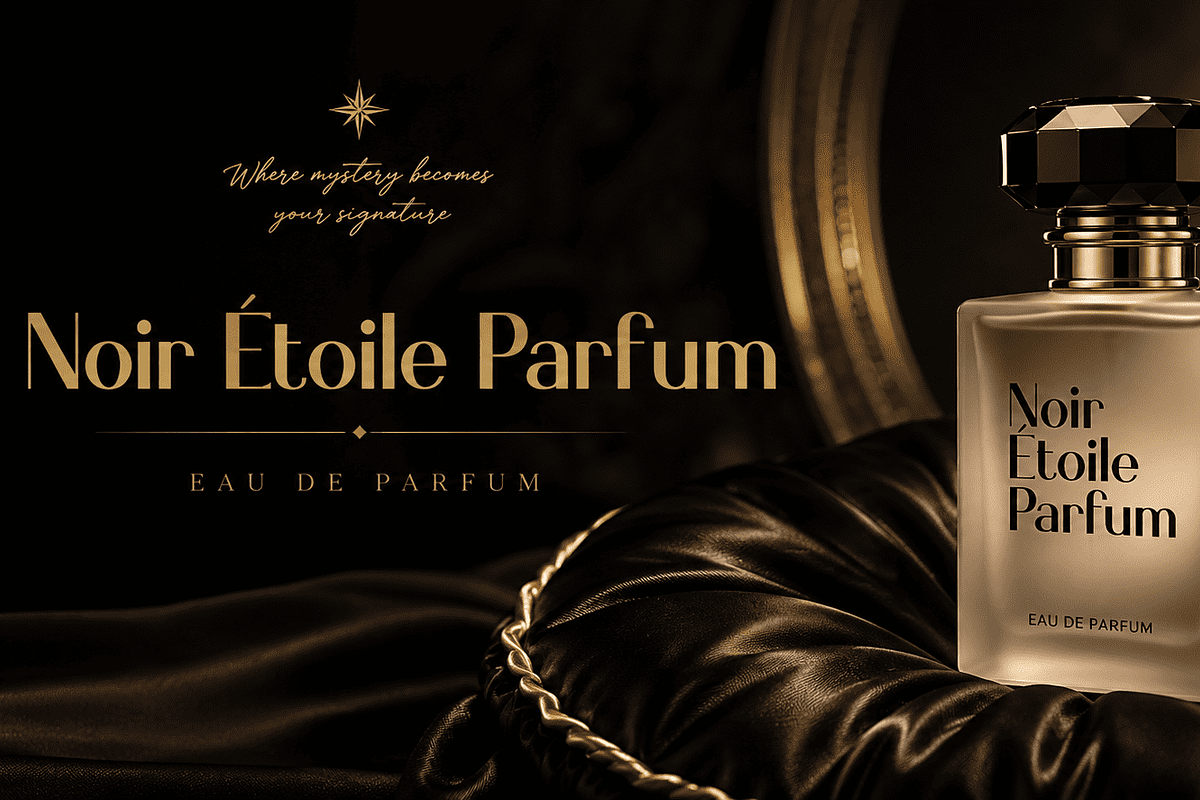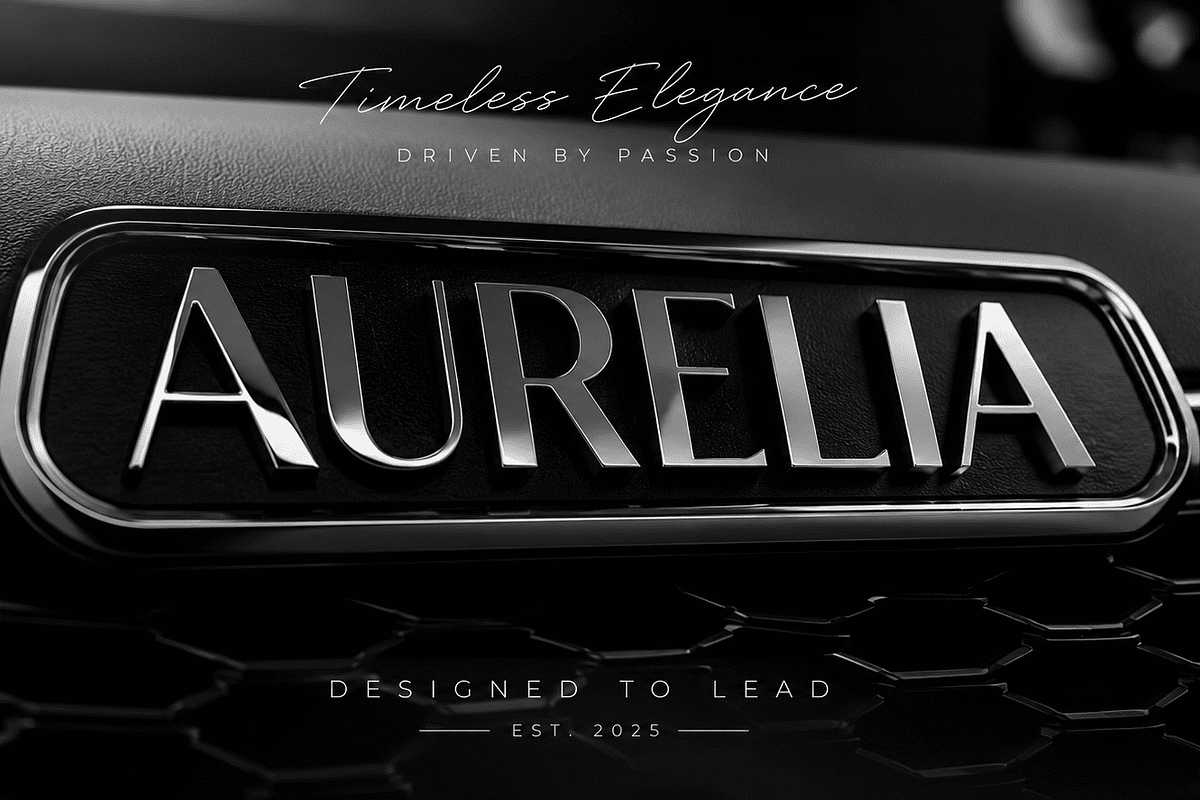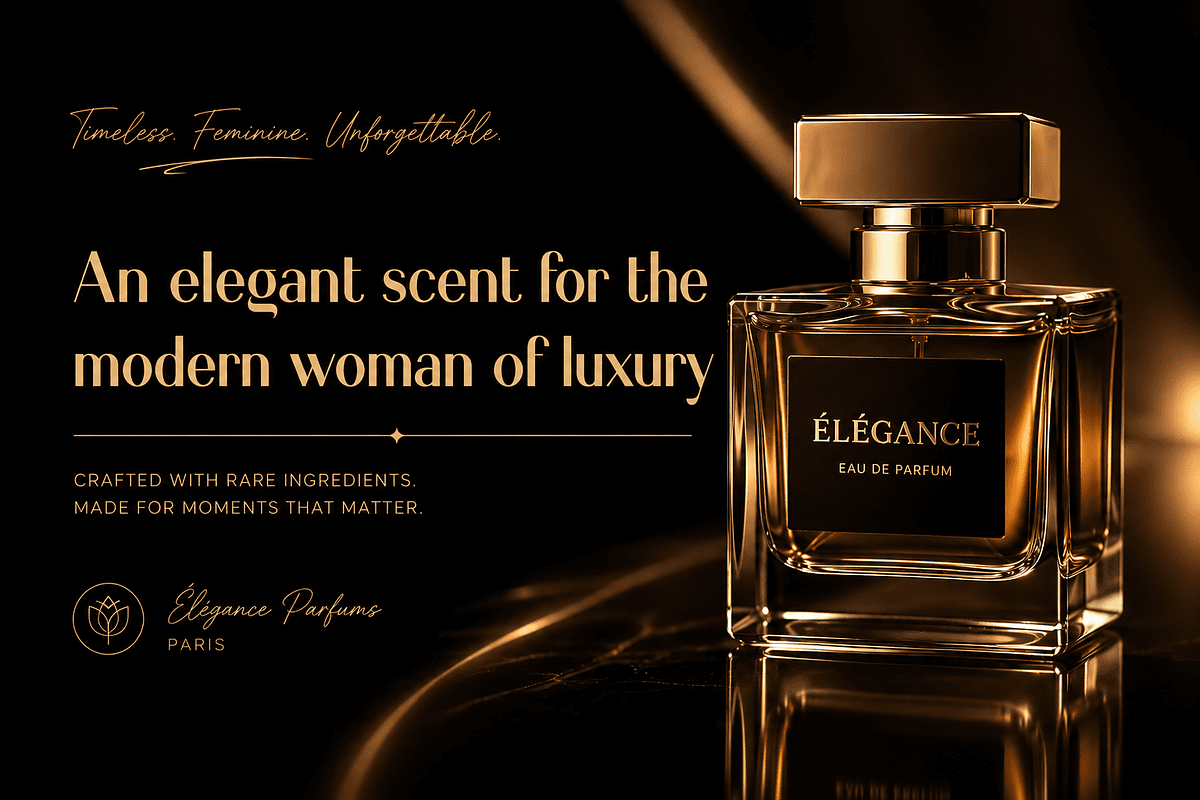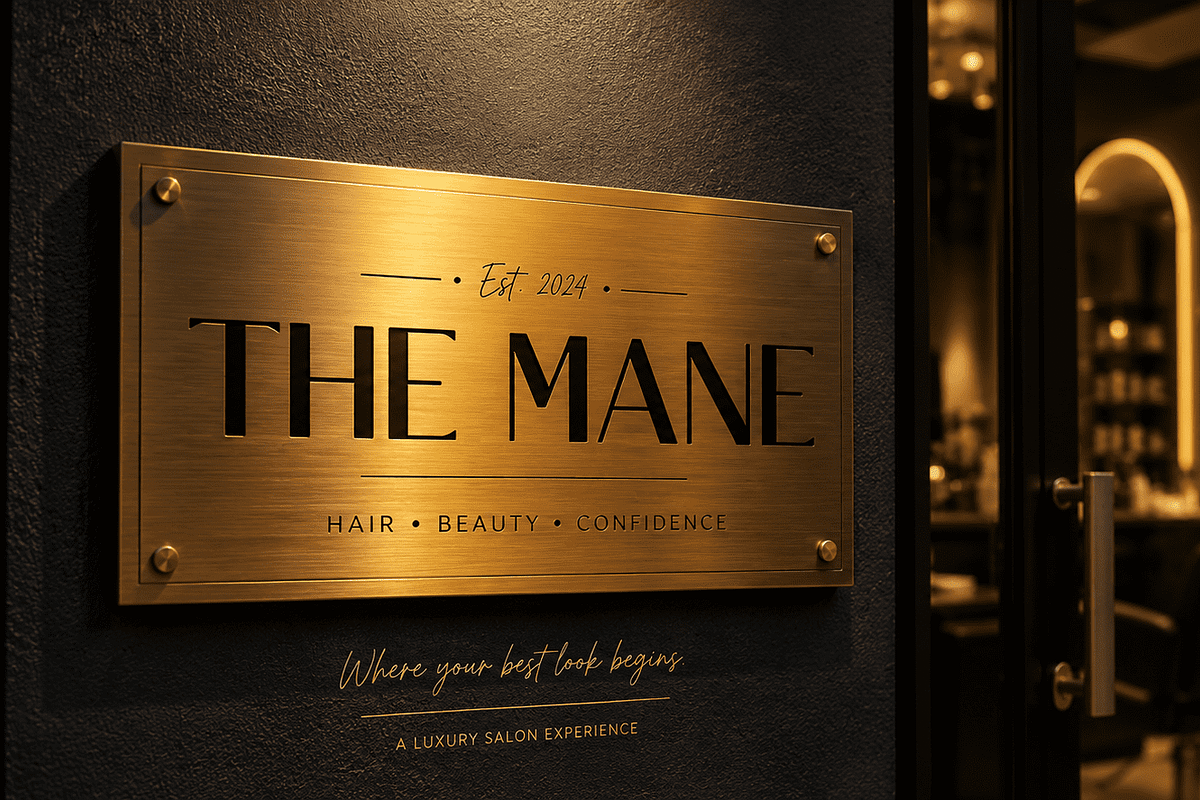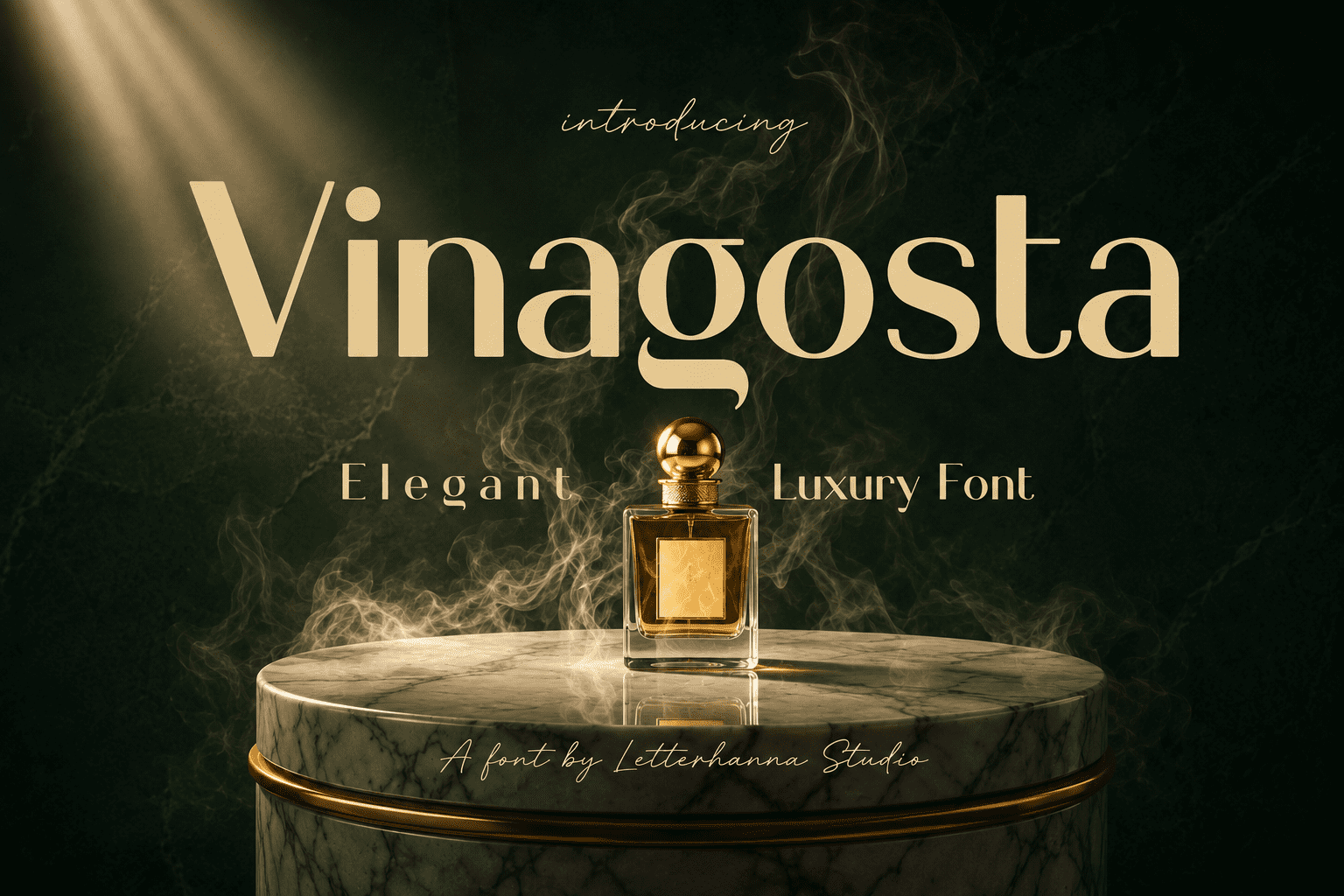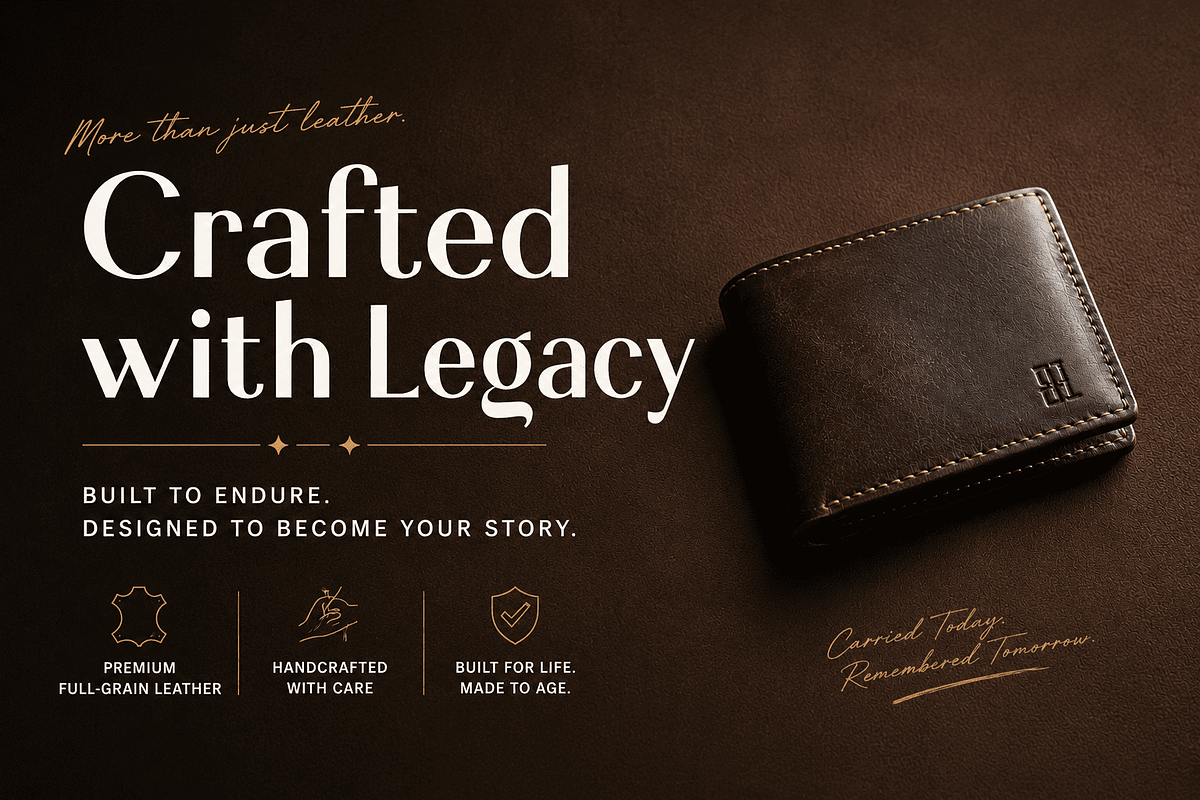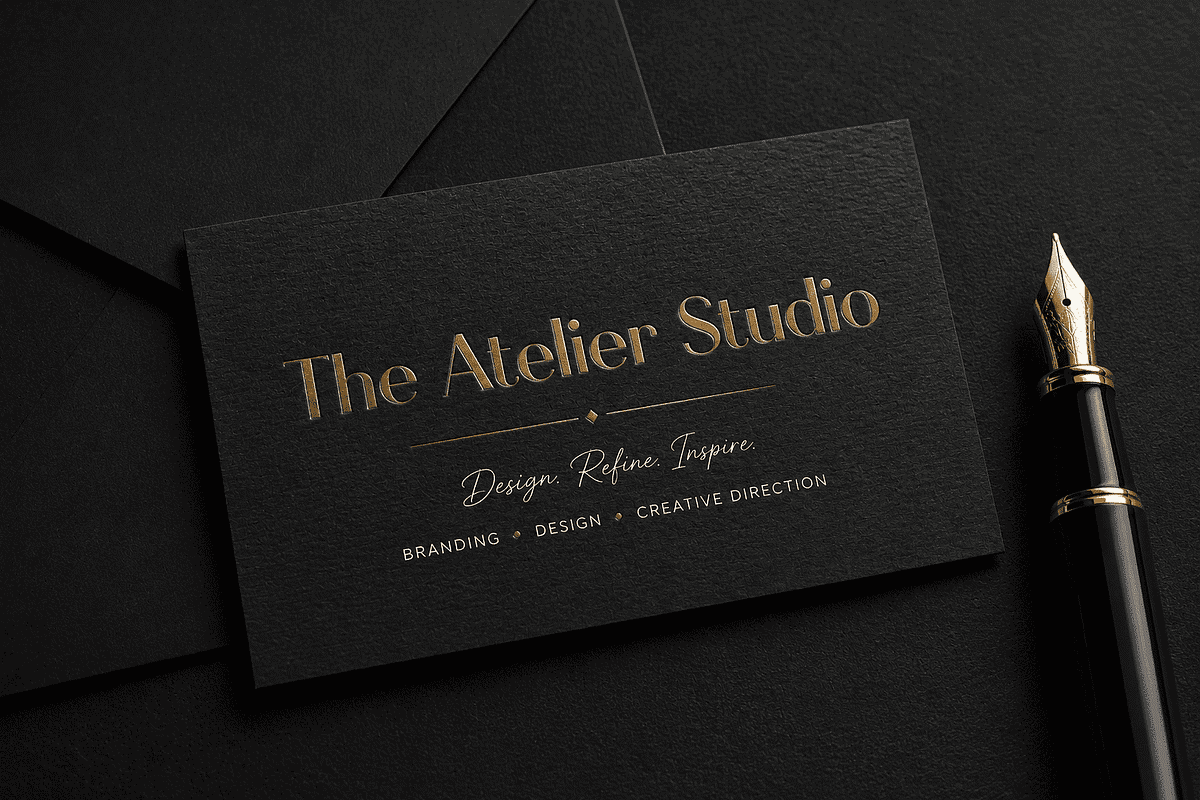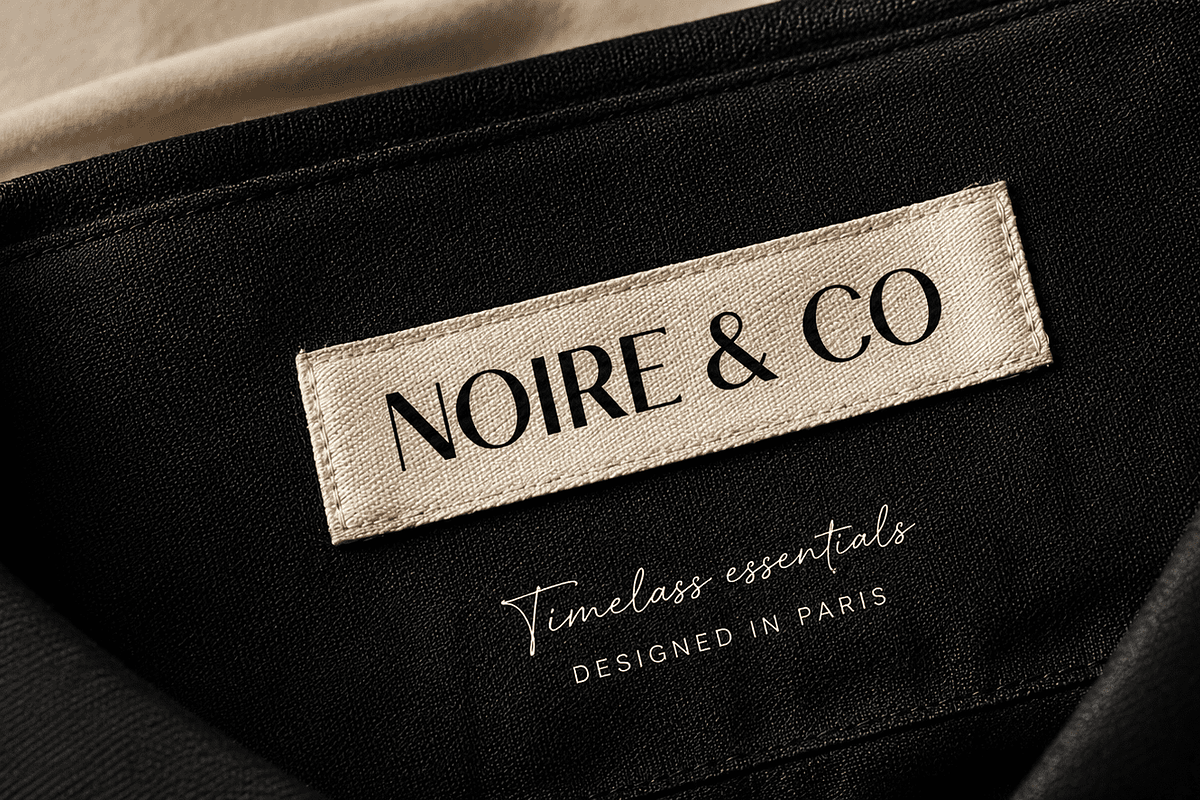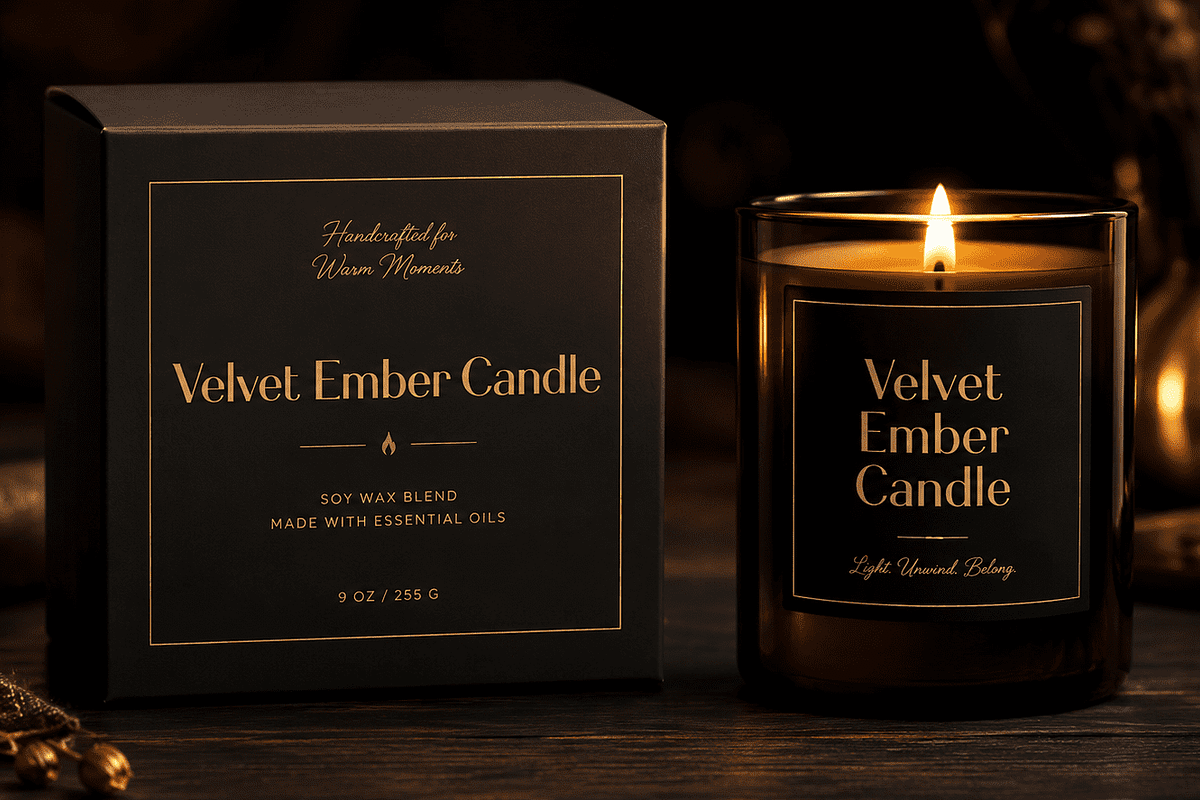
Vinagosta: A Luxury Display Font
Finding a luxury display font that actually feels luxurious — not just decorative — can be exhausting. Most serif options blur together: familiar, expected, forgettable. If your brand deserves better than "just another serif," Vinagosta might be the shift you need.
Scrolling through font marketplaces, it's easy to feel stuck between "too bold" and "too soft." Which weight says confidence without shouting? Which serif whispers elegance instead of screaming vintage? That confusion is real, and it's why so many fashion labels default to safe, forgettable typography.
Vinagosta cuts through that noise. It's a bold, high-contrast serif with sharp, tapered terminals and a distinctly editorial silhouette. The uppercase letterforms stand tall and architectural, while the lowercase — including a refined double-story "g" — adds classic sophistication. This isn't a soft, romantic script; it's structured, assertive, and unapologetically premium.
As a modern serif font, Vinagosta blends vintage luxury with contemporary minimalism. Think glossy fashion magazine headlines, high-end packaging, or wedding suites with an edgy twist. It carries the confidence of couture branding without feeling dated or overly ornate.
Here's the surprising part: a single typeface swap can completely transform how premium your brand feels — no redesign, no new logo, just better letterforms doing the heavy lifting. That's the quiet power of a well-crafted elegant fashion font like Vinagosta.